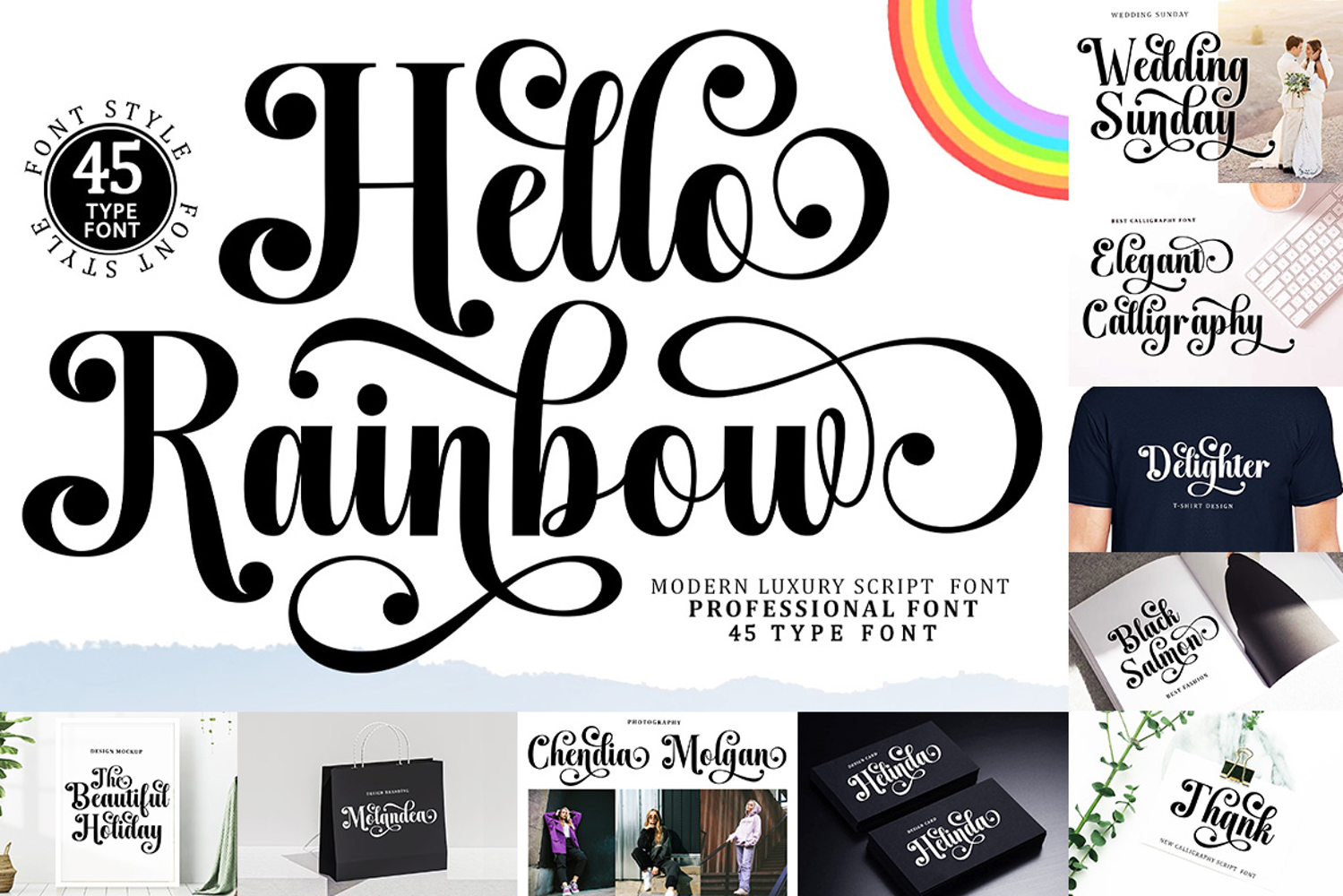
Hello Rainbow - Family Font In 45 Type
Hello Rainbow Family Script is a versatile collection of 45 beautifully designed typefaces with a modern and elegant touch, showcasing a touch of elegance.
Hello Rainbow Family font is sleek, clean, feminine, sensual, glamorous, simple, and highly legible thanks to its many beautiful letter connections. I also offer a number of stylistic alternatives for some of the letters. The classic style is perfect for use in a variety of formal applications such as invitations, labels, restaurant menus, logos, fashion, makeup, stationery, novels, magazines, books, greeting/wedding cards, packaging, labels, or any type of advertising use.
Contains 45 New Font Types:
Regular, Slant, Bold, Bold Slant, Outline, Outline Slant, Outline Bold, Hatching, Hatching Slant.